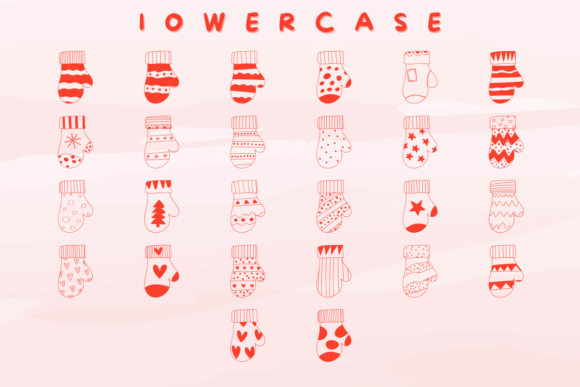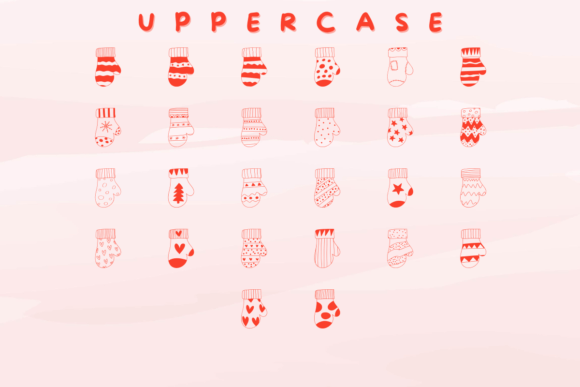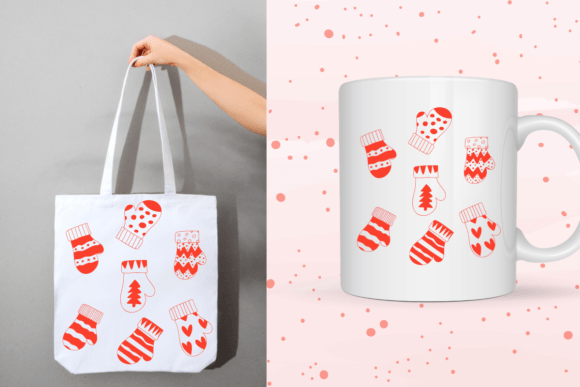
Introduction to Christmas Gloves Font
**Christmas Glove** is a Dingbat Font that will make your designs look modern, unique, and fun.
It’s perfect for quotes, posters, stickers, DIY projects, mugs, packaging, greeting cards, tote bags, t-shirts, patterns, window art, scrapbooking, tags, and more .